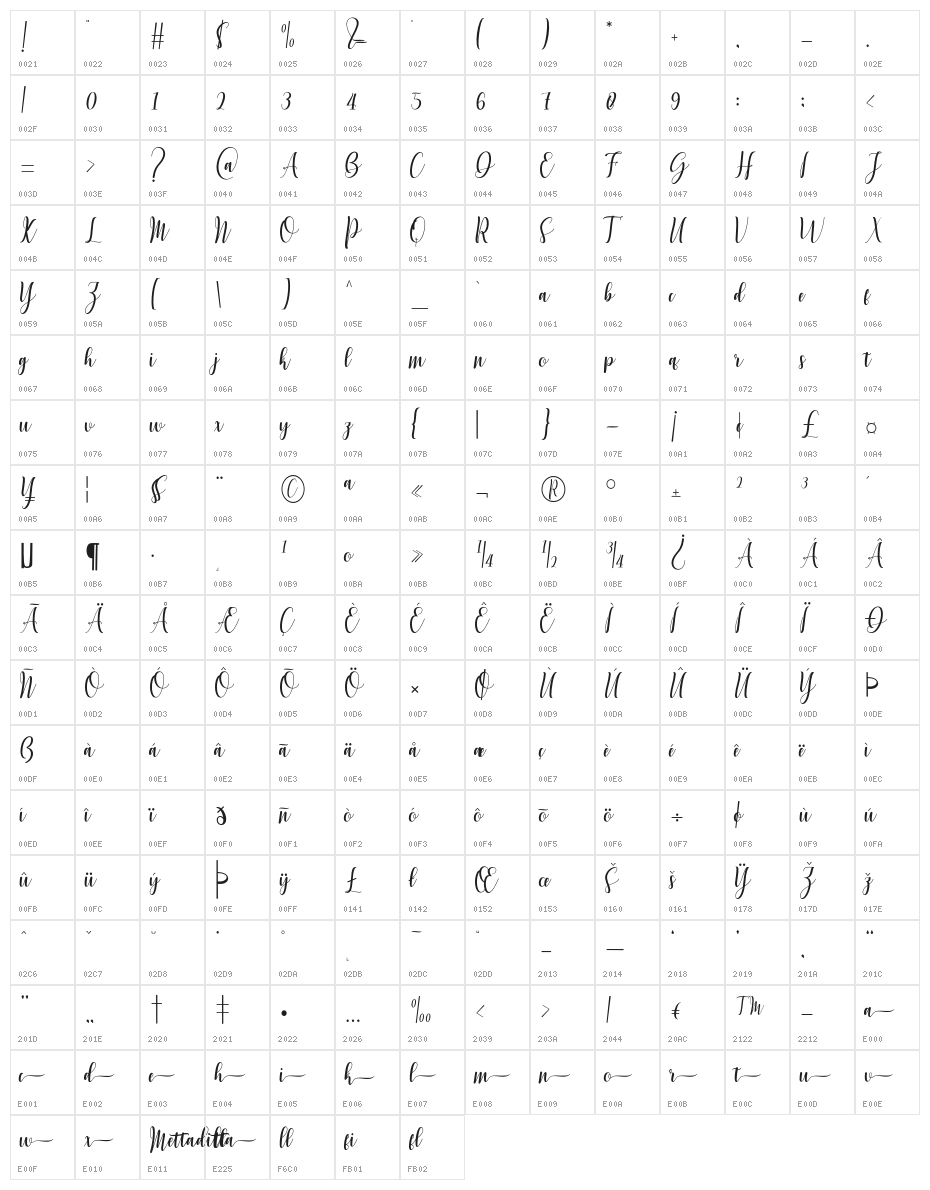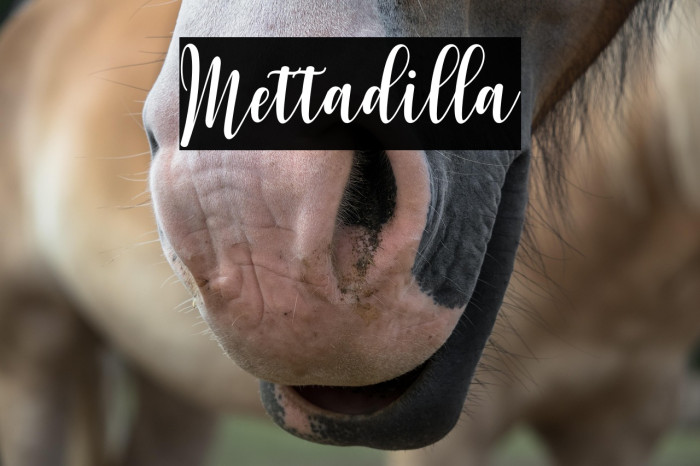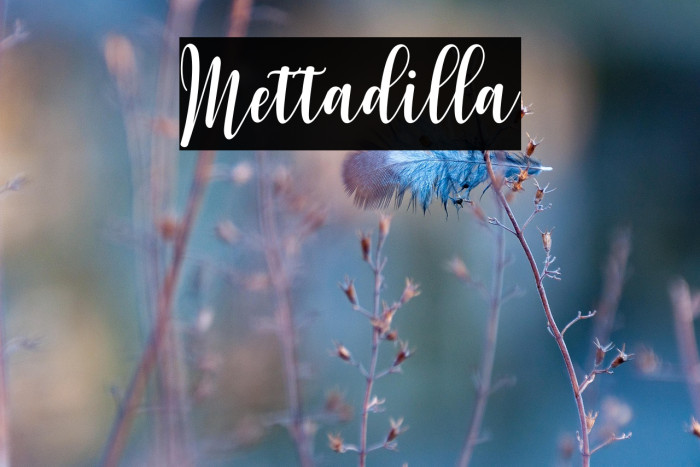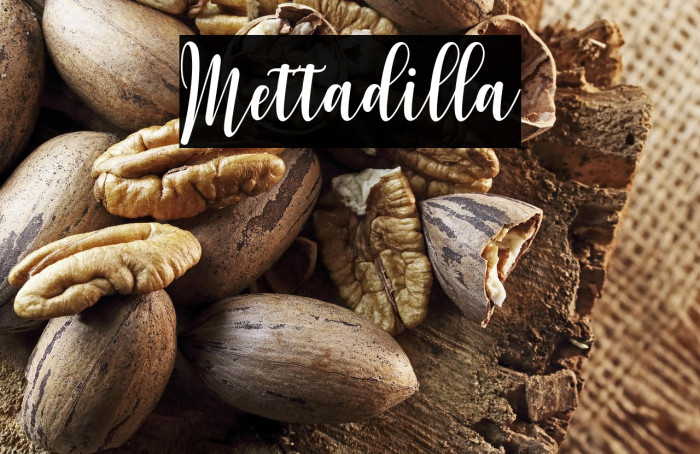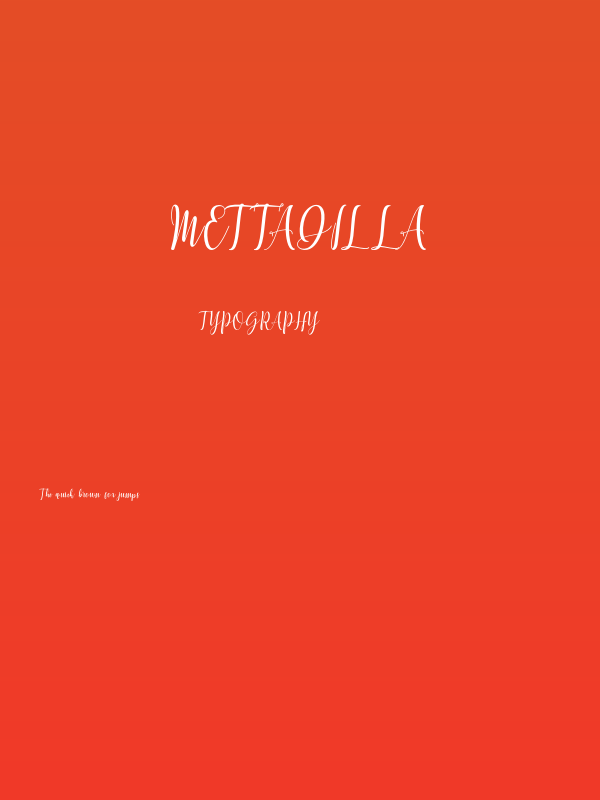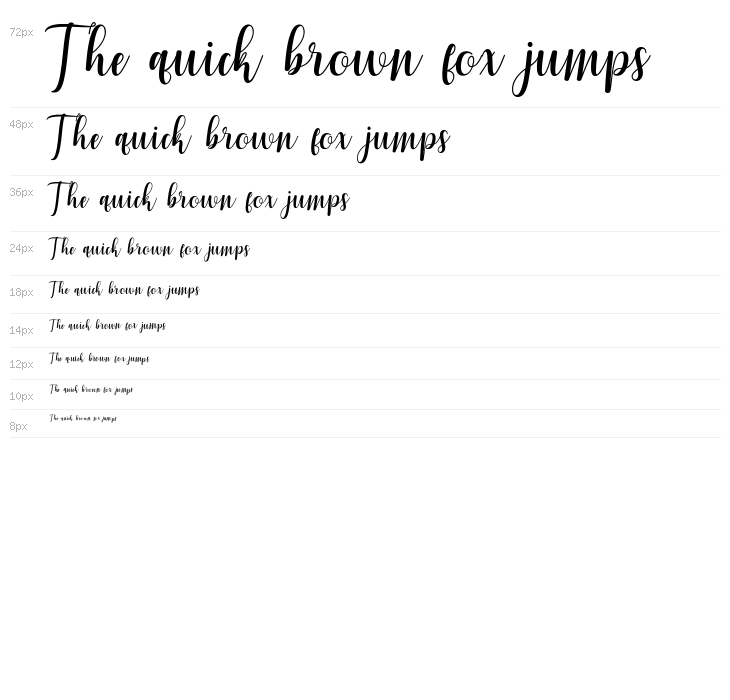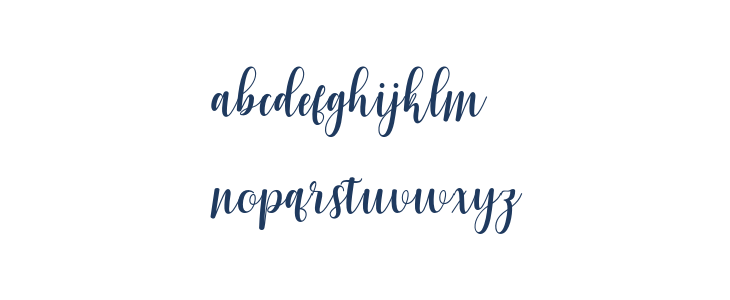
Mettadilla Font
Mettadilla Description
This font exudes a sense of elegance and fluidity, characterized by its cursive script style. The letters are interconnected, creating a seamless flow that is both sophisticated and artistic. The uppercase letters are tall and graceful, with sweeping curves and loops that add a touch of drama. The lowercase letters maintain the same fluidity, with a slightly more compact design that complements the uppercase. The numerals and special characters are consistent with the overall style, featuring similar curves and loops. This font is perfect for projects that require a personal, handwritten touch, such as invitations, greeting cards, and branding materials.
| Overall Style | Elegant, Artistic |
| Use Case | Headlines, Invitations, Branding |
| Proposed Projects | Ideal for wedding invitations, greeting cards, personal branding, and elegant logos. |